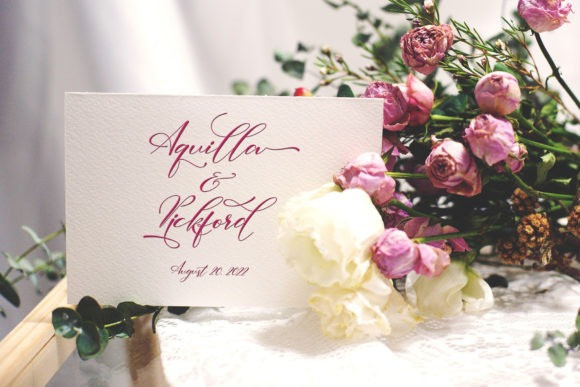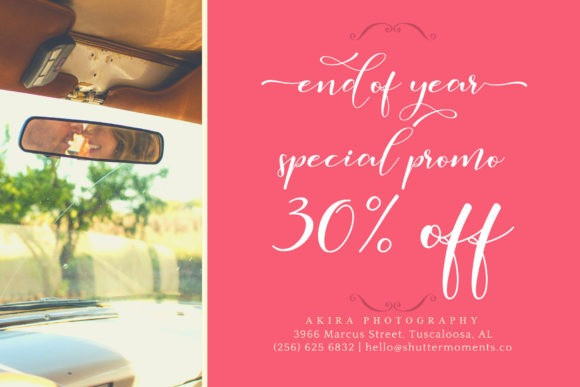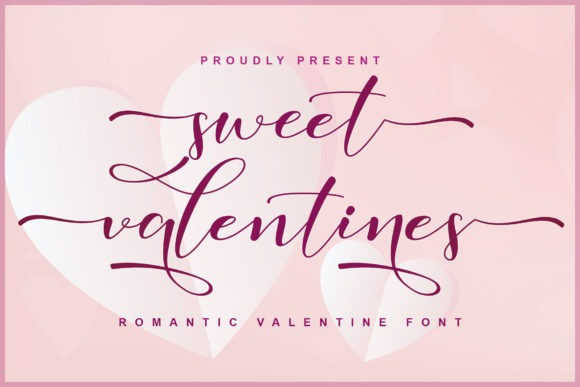
Sweet Valentines Script Font
Sweet Valentines is a romantic and sweet script font with characters that dance along the baseline. It will add a luxury spark to any design project that you wish to create! This font is PUA encoded, which means you can access all of the amazing glyphs and ligatures with ease!